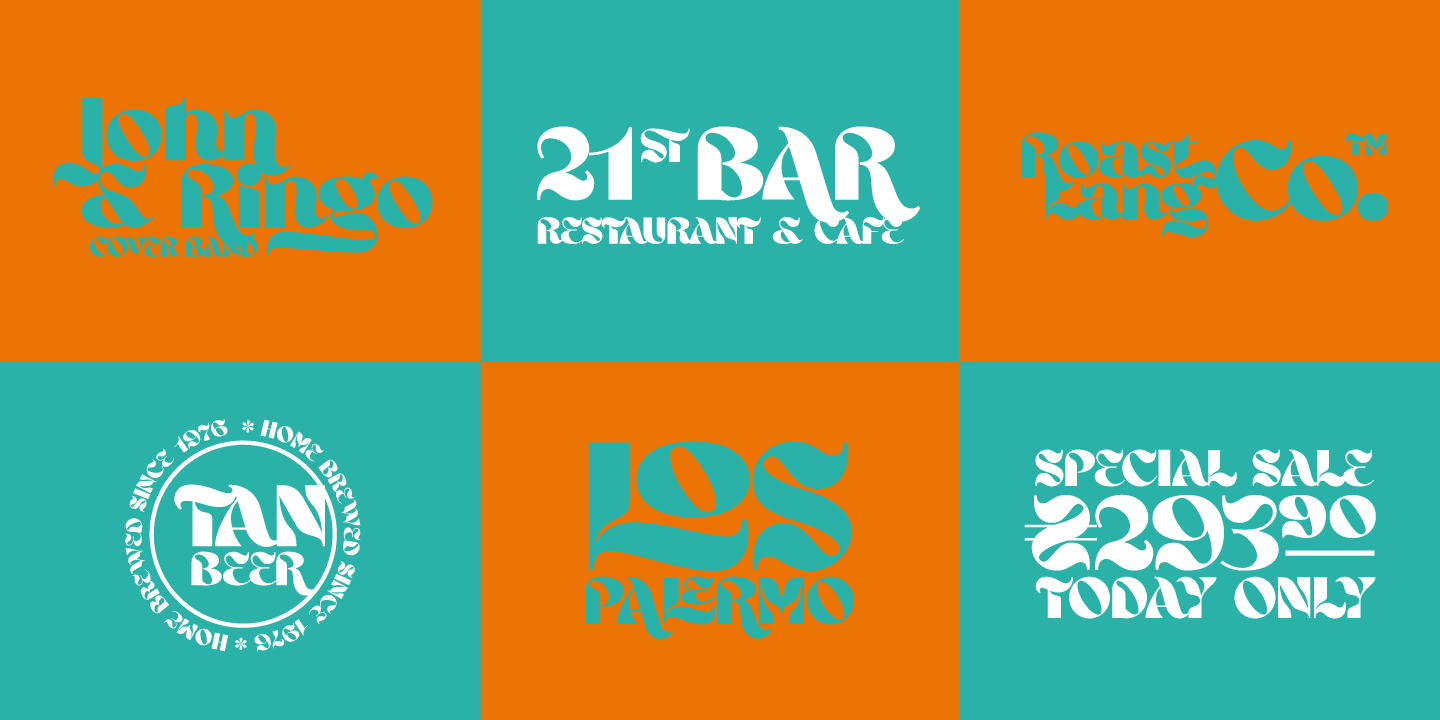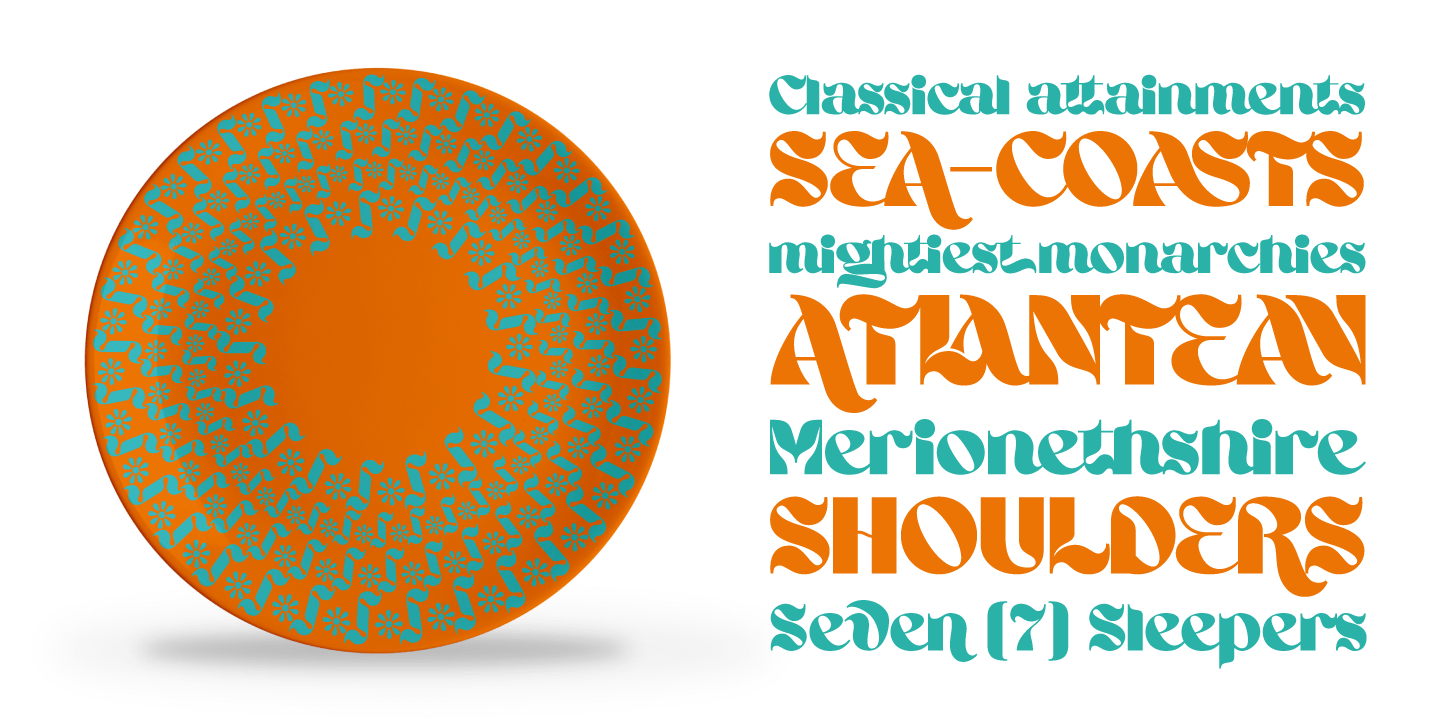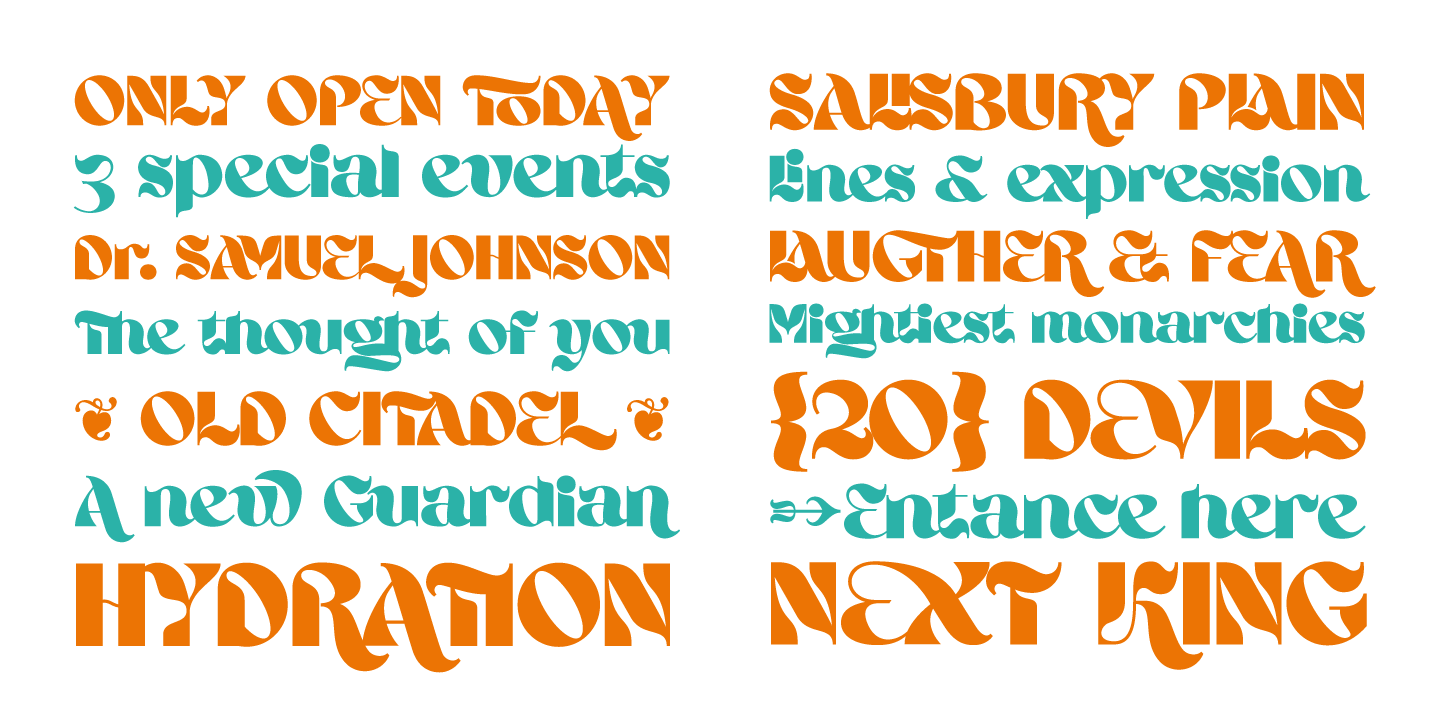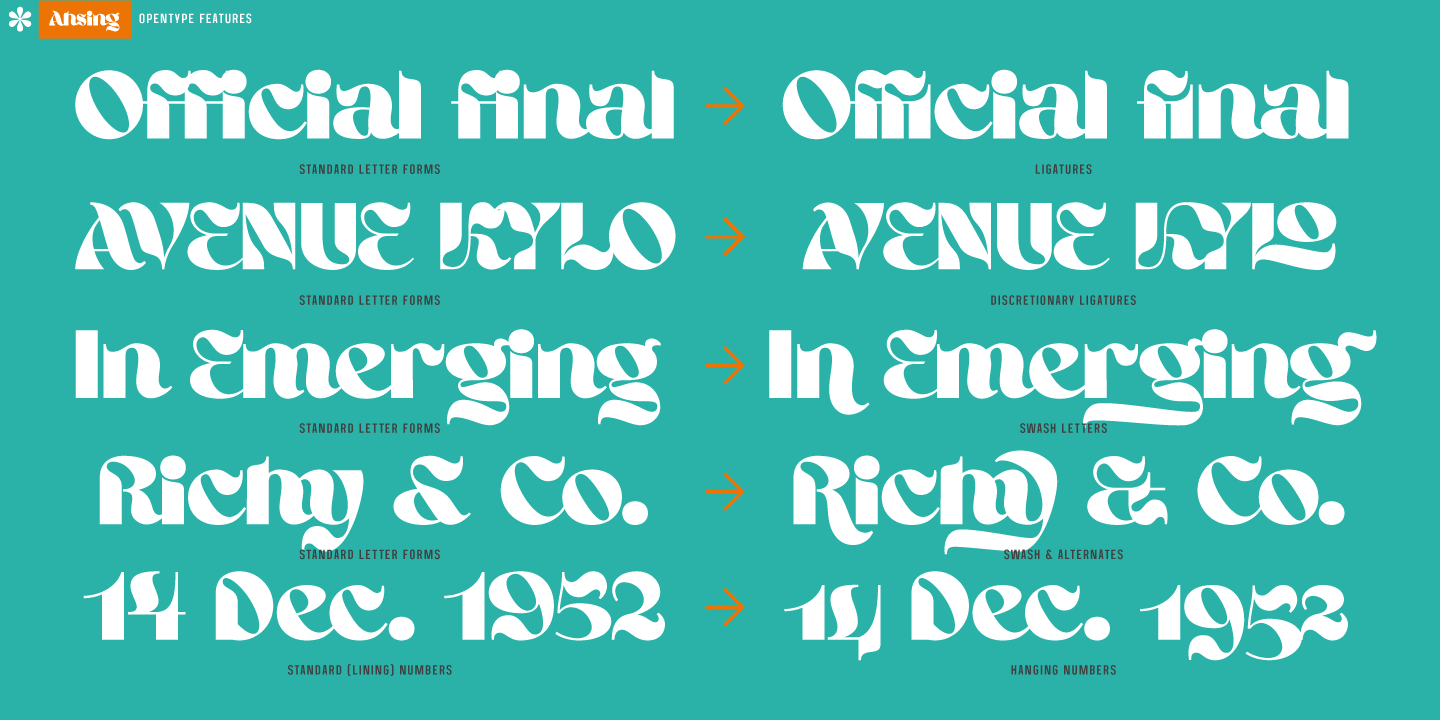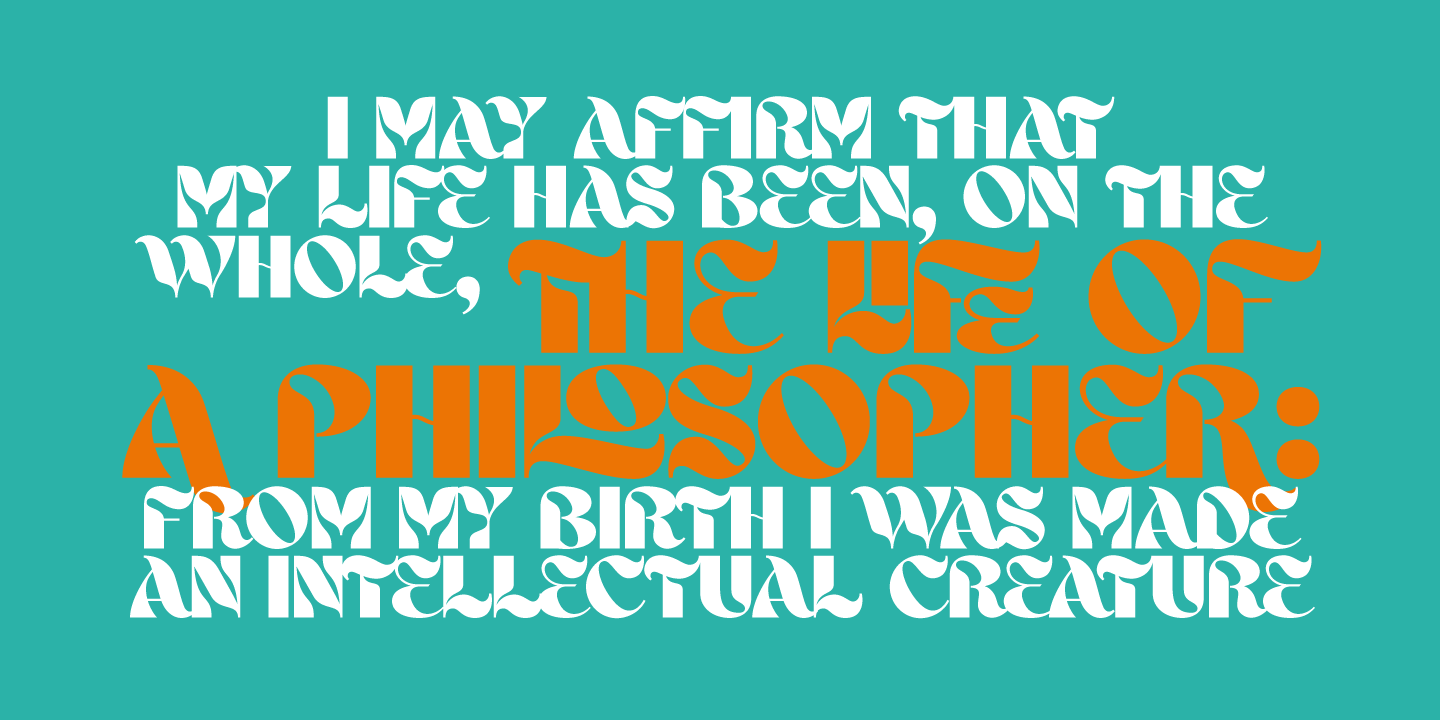
About Ahsing
Inspired by a wide range of sources and styles, Ahsing is a single weight typeface that aims to explore new design solutions. With a bold form a strong contrast and pronounced diagonal axis, this design hints both at past typeface styles while being unique…